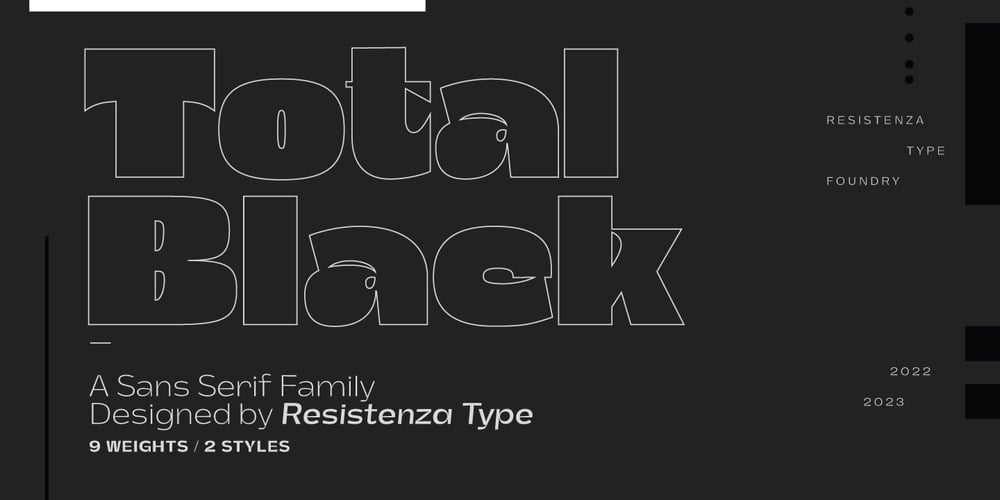
Total Black Font Family was designed by Giuseppe Salerno, Paco González and published by Resistenza. Total Black contains 16 styles and family package options. A modern font family inspired by classic grotesk typefaces. It features 9 weights, including Italics and a formidable Display version. It has a clean, neutral look that is perfect for all types of graphic design projects. Its ample character set, including Standard and Contextual Alternate, ensures excellent typesetting performance. Sans Serif offers good readability and a strong, serious tone, perfect for logos, magazines and more.